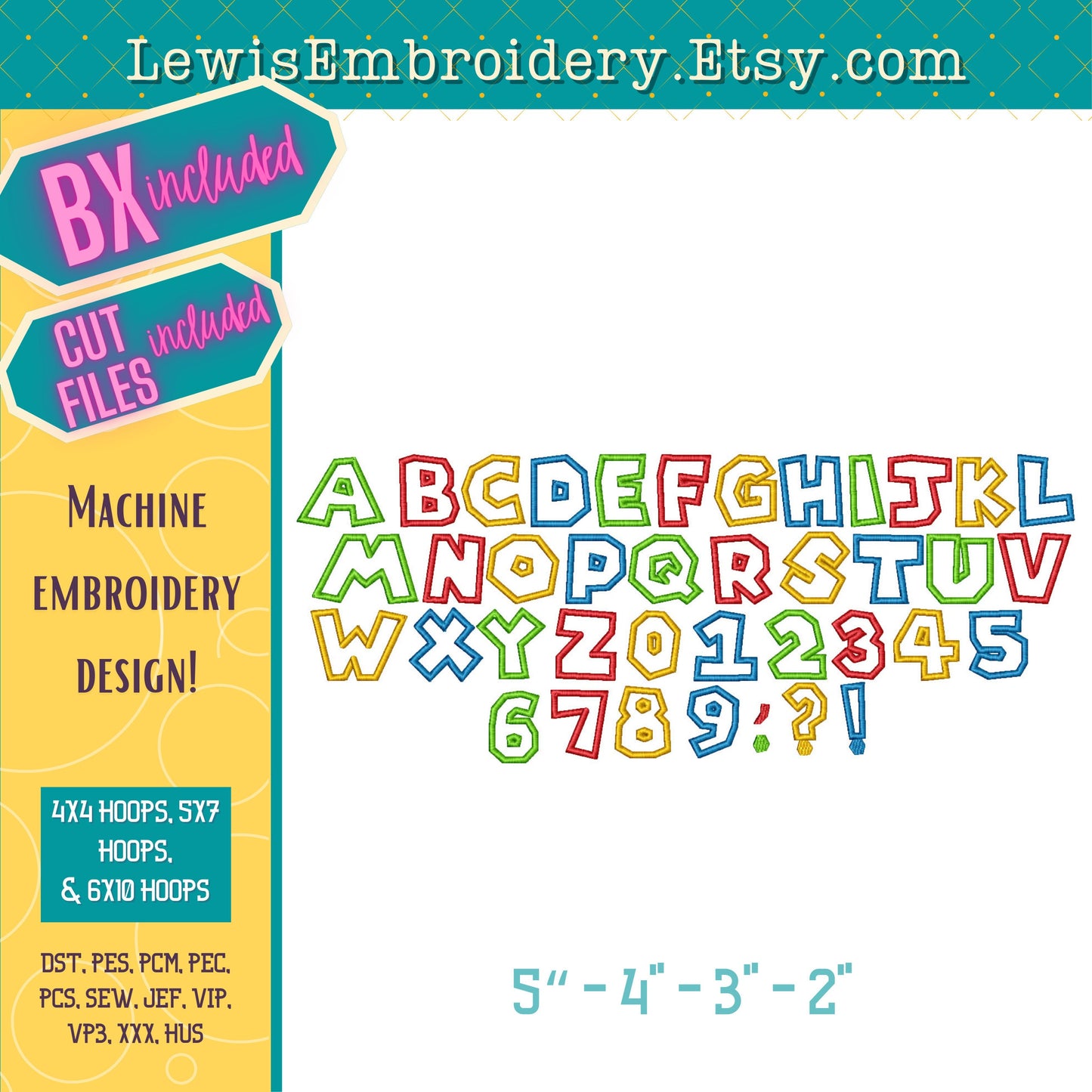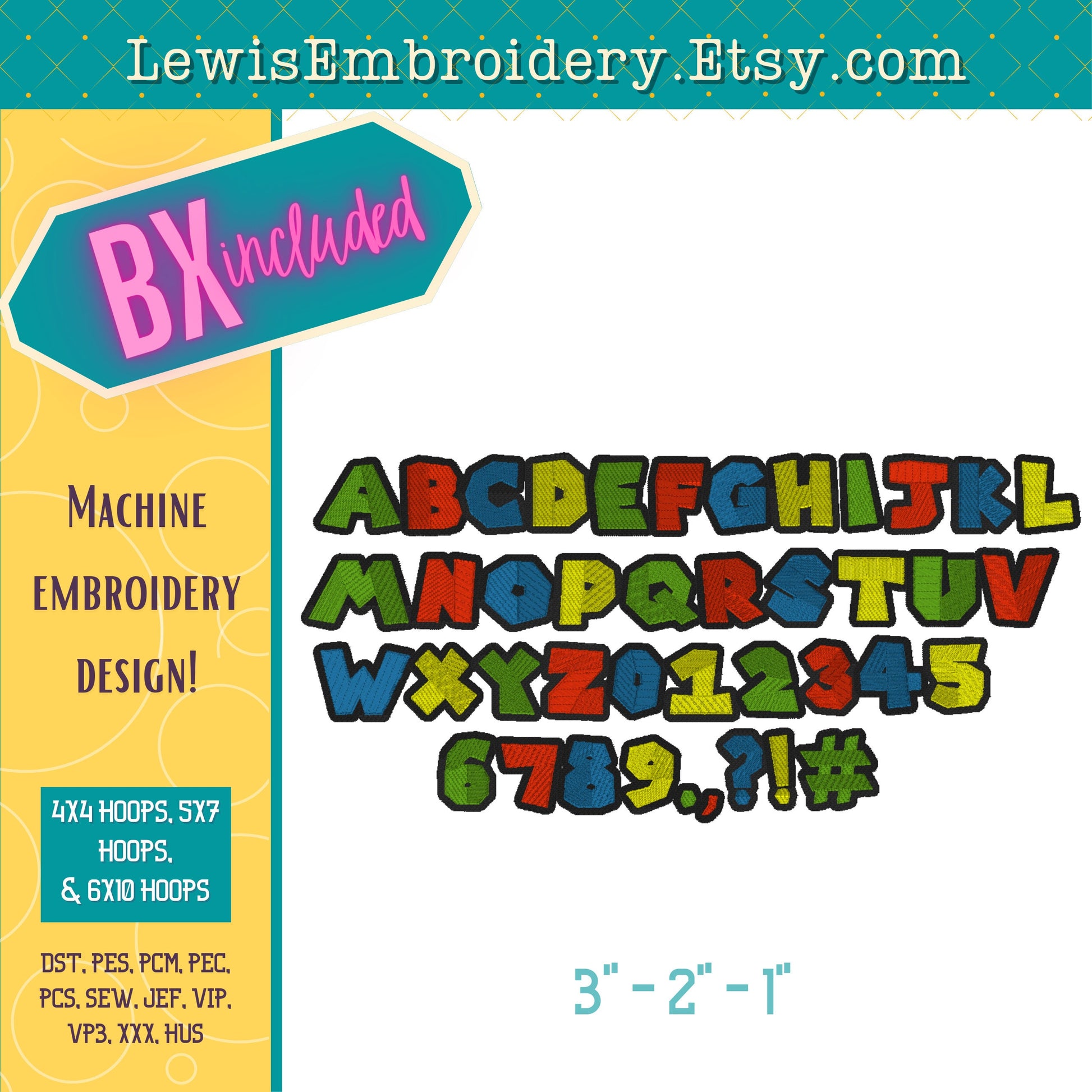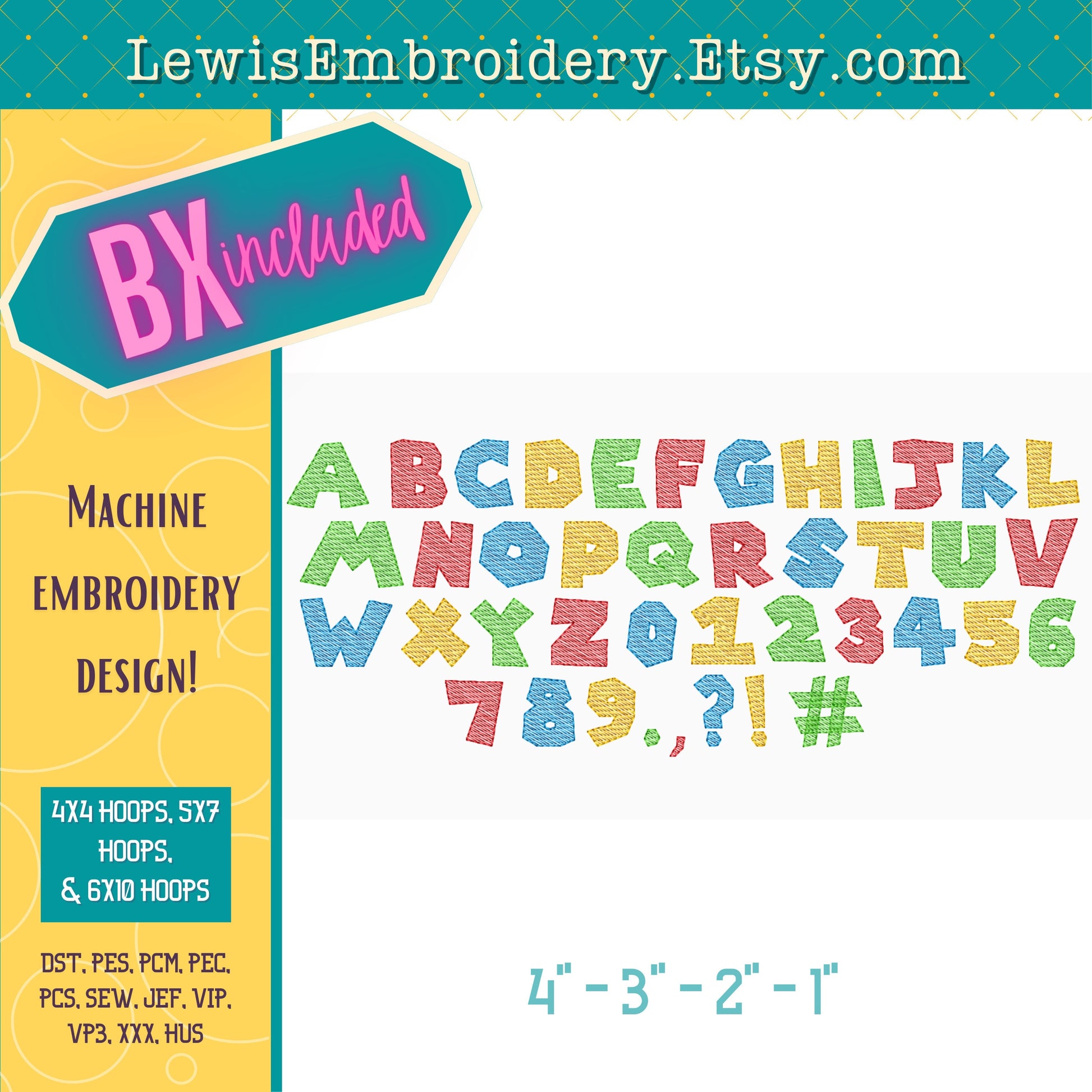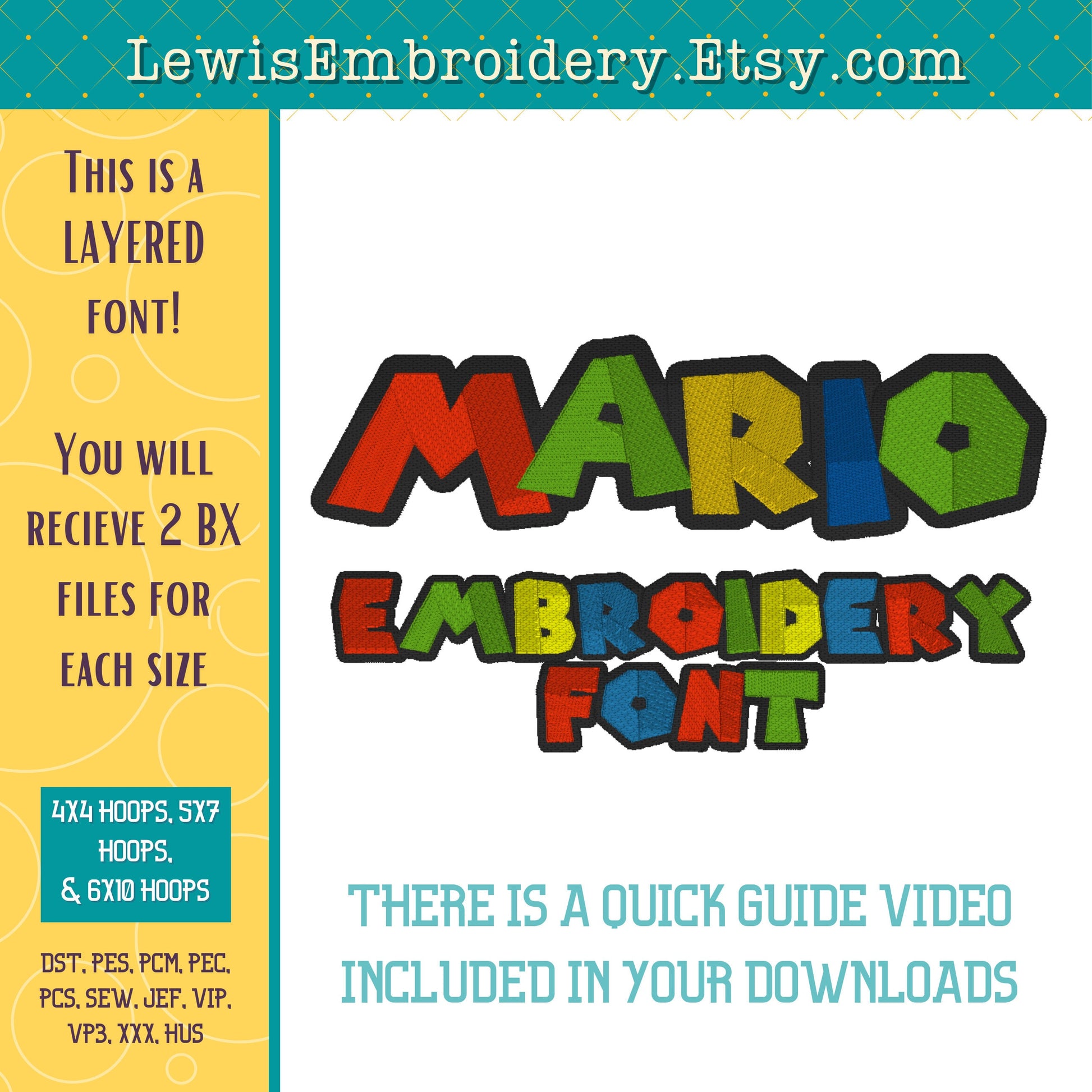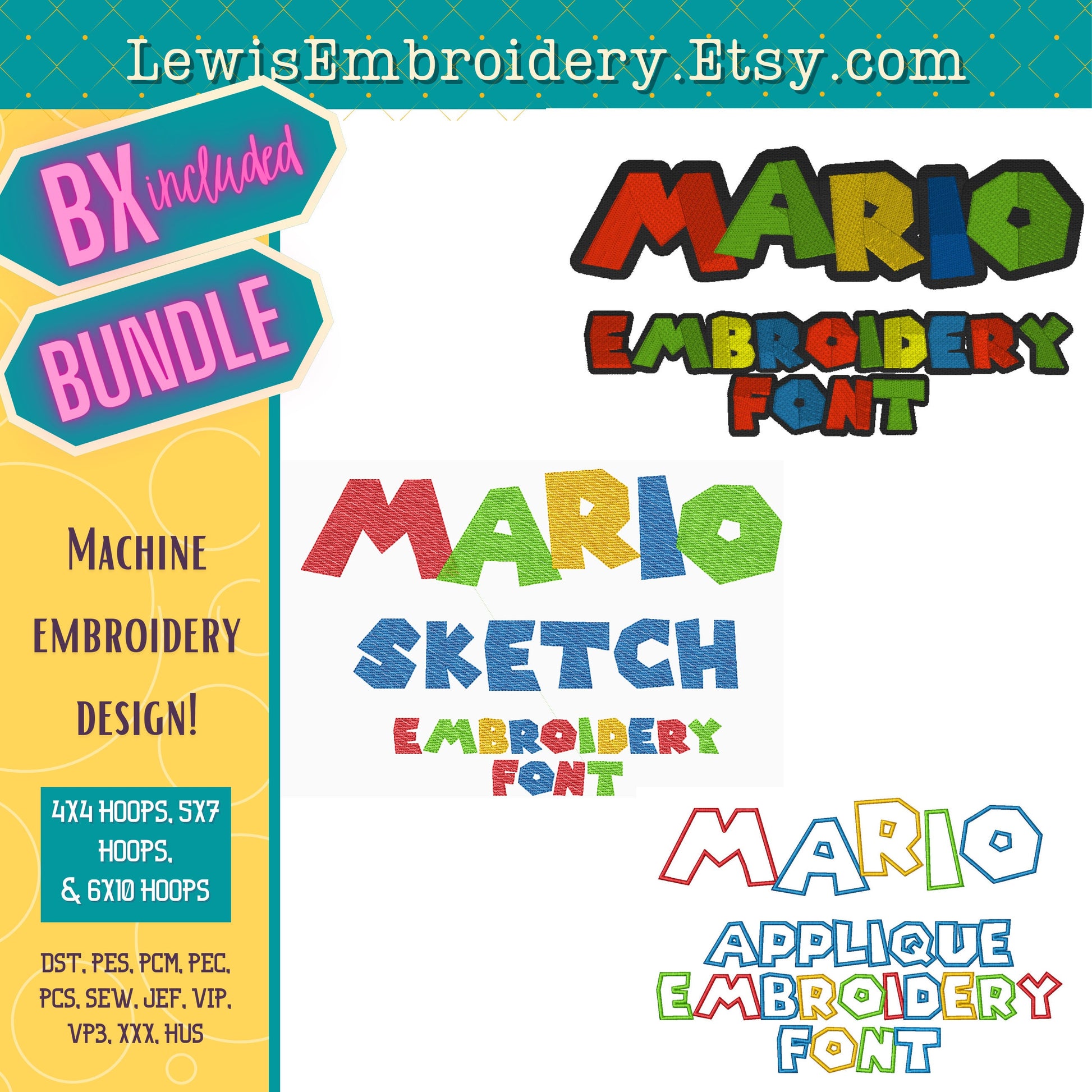
Mario Embroidery Font Bundle – Applique, Sketch, Fill - (BX Included)
Mario Embroidery 3 Font Bundle - Super Embroidery Font - Knockdown, Applique, Sketch, Quick Fill Font - BX Font - Video Game Font - Cartoon
BUNDLE!! 3 Fonts!
This fun set of fonts will add a nice touch to any of your projects!
The fill font comes in the following sizes, measuring at the tallest point of the uppercase M:
The sketch fill font comes in the following sizes, measuring at the tallest point of the uppercase M:
The applique font comes in the following sizes, measuring at the tallest point of the uppercase M: